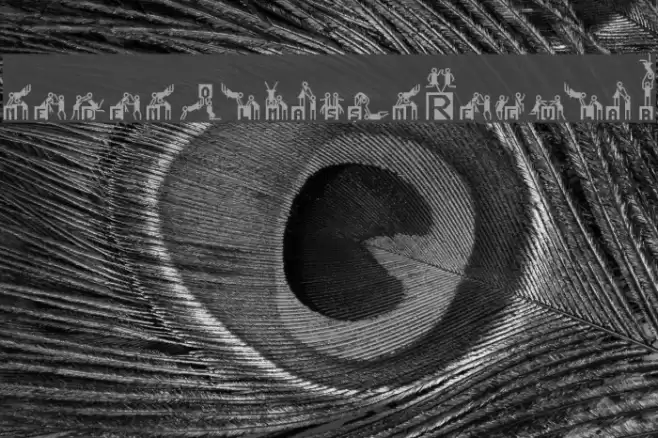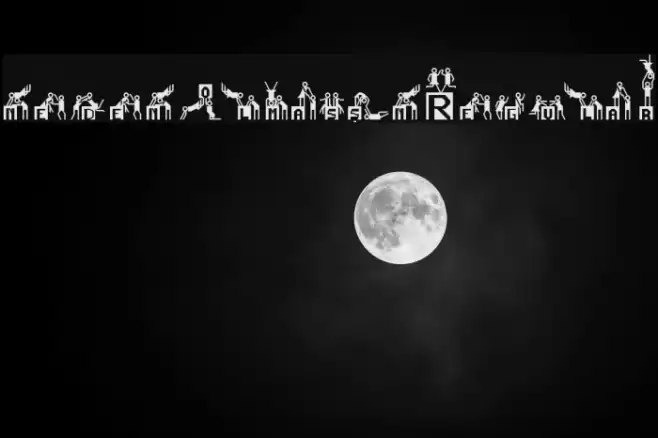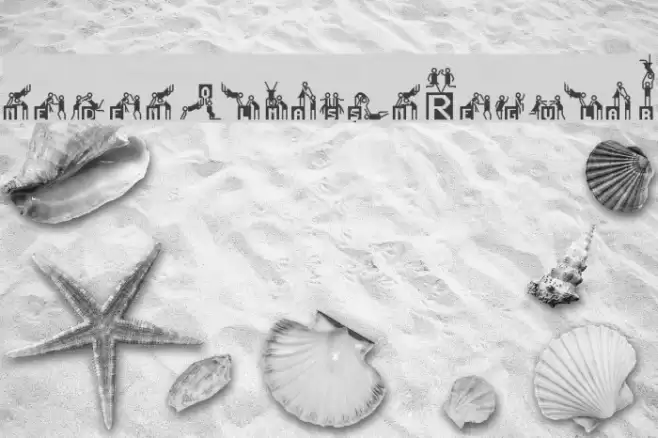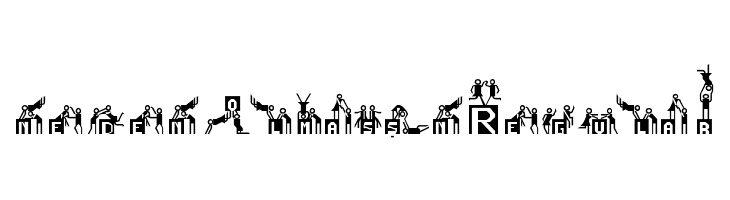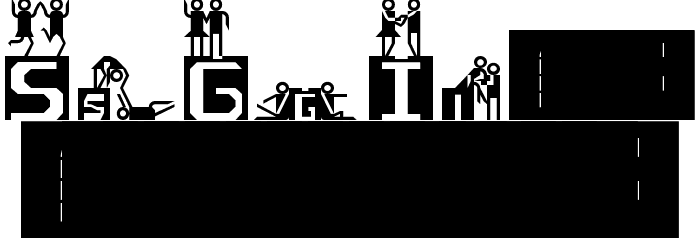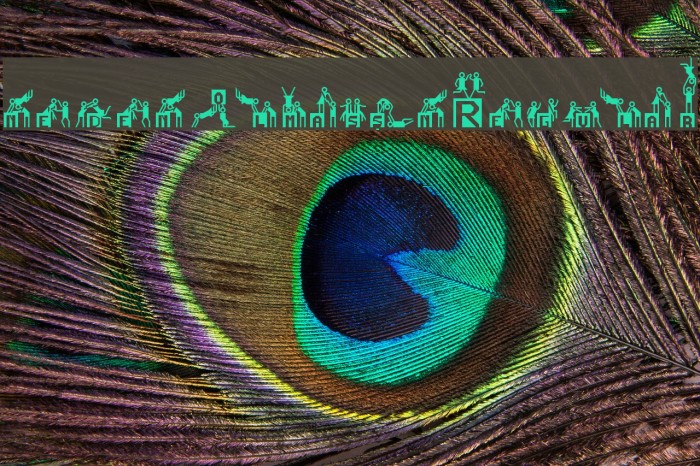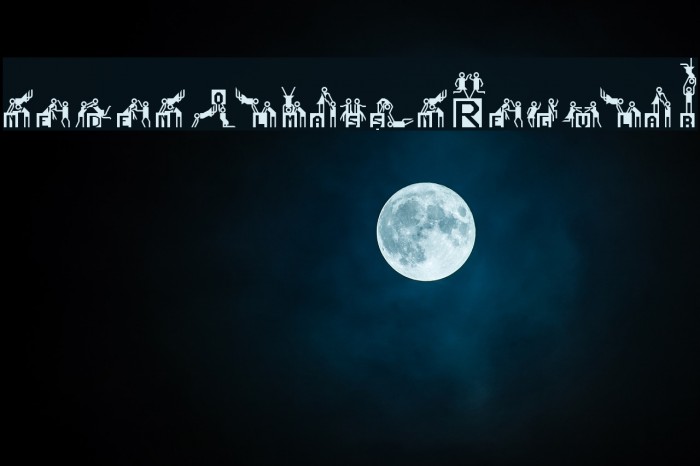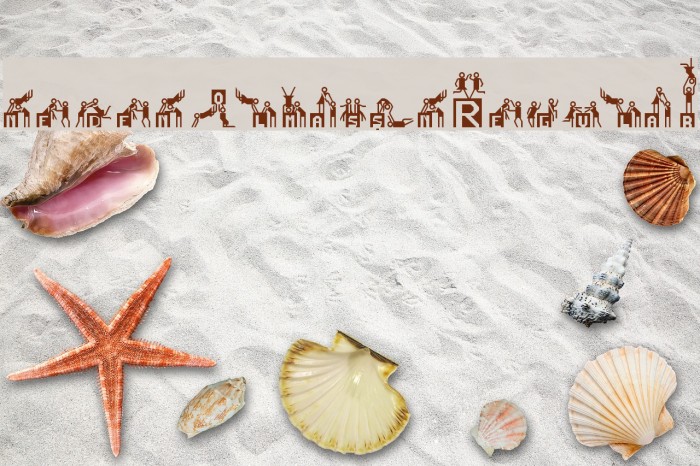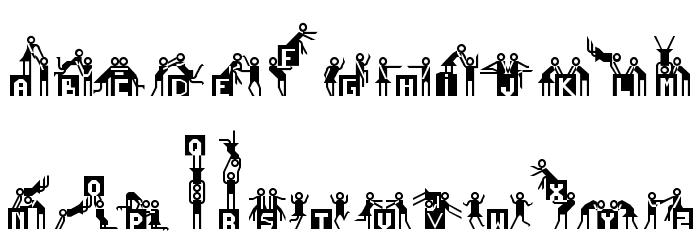
neden olmas1n Regular Font
neden olmas1n Regular Description
This font is a playful and creative display typeface where each letter is formed by stick figures interacting with the letter shapes. The uppercase letters are bold and blocky, providing a solid background for the stick figures to stand out. The lowercase letters maintain the same playful style, with figures engaging in various activities. The numbers and special characters follow the same theme, ensuring a cohesive look throughout. This font is highly decorative and unique, making it ideal for projects that require a fun and engaging visual element.
A playful, stick-figure themed decorative display font from Decorative fonts.
- Proposed Projects: Ideal for children's books, playful posters, creative branding, and any project needing a fun, whimsical touch.
- Use Case: Logos, Posters, Creative Titles